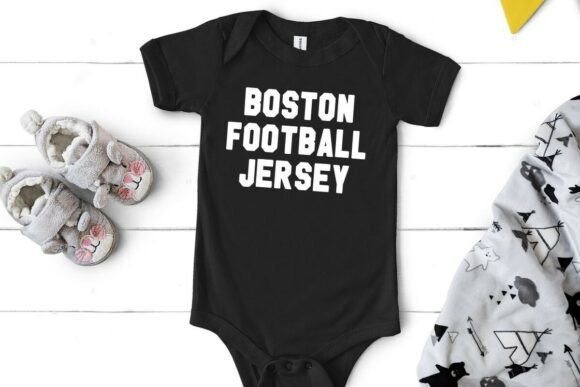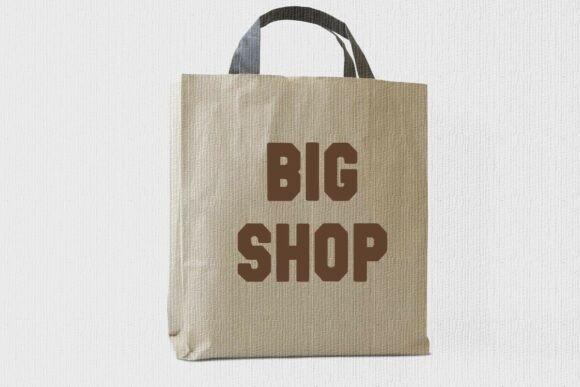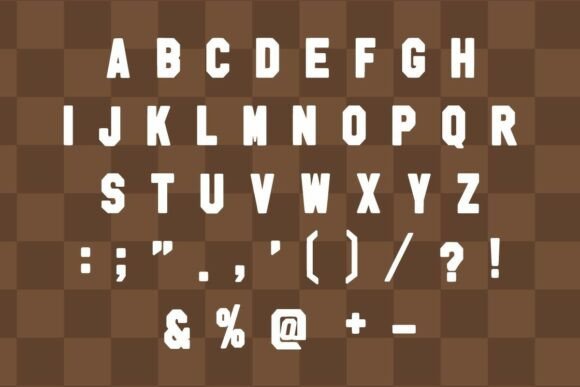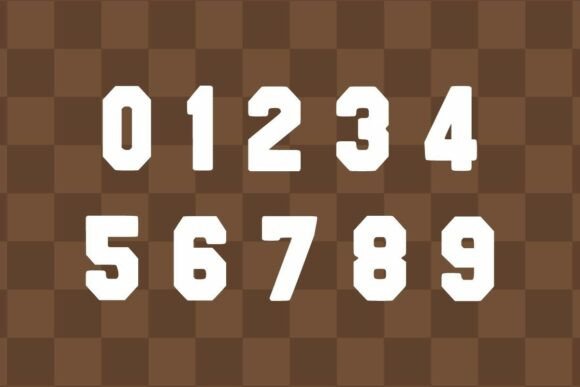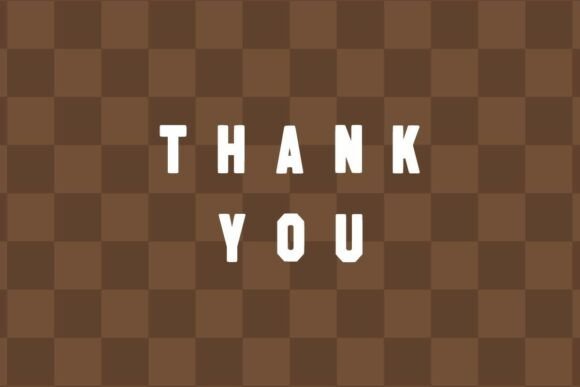
Unleash the Power of Vintage Chic: Discover Bostonfootball Regular Font
There’s nothing quite like the feeling of rummaging through your grandfather’s old trunk, filled with memories and forgotten treasures. Among the dusty relics, you stumble upon an old varsity jacket with a bold, cursive font that screams nostalgia. This moment sparks a creative idea – to bring back the classic charm of bygone eras in your designs. Enter Bostonfootball Regular Font, a bold, vintage-style varsity display font that embodies the essence of classic collegiate lettering.
Bostonfootball Regular Font is more than just a font – it’s a statement piece that adds a rugged, retro touch to any project. Its strong, structured form makes it a standout choice for designers looking to create confident and eye-catching designs. Whether you’re working on winter-themed branding or crafting a motivational quote, Bostonfootball Regular Font is the perfect addition to your design toolkit.
Boston Football Regular Font Key Features
- Font Family: Boston Football Regular Font
- Unique Characteristics: Features a bold, rugged design with a mix of modern and vintage elements, ideal for sports and action-themed projects
Boston Football Regular Font Review
I recently had the chance to work with the Boston Football Regular Font, and I must say, it’s a solid choice for sports-themed projects. ✨ Here are some of the things that worked well:
- The font’s bold and rugged feel perfectly captures the spirit of American football.
- The font is highly legible, even at smaller sizes, making it ideal for signage and scoreboards.
- The font’s consistency across different weights and styles makes it easy to use in various contexts.
- The font may not be as suitable for more formal or elegant designs, as its ruggedness can come across as rough.
- The font’s character set may not include as many international characters, which could be a problem for global projects.
Overall, the Boston Football Regular Font is a great choice for sports-themed projects that require a bold and rugged feel. While it may have some limitations, its strengths make it a solid addition to any designer’s toolkit.
Getting the Most Out of Bostonfootball Regular Font
For optimal results, use Bostonfootball Regular Font for headings and titles to create a bold and striking visual impact.
Bostonfootball Regular Font is ideal for:
- Sports-themed designs (e.g. football, basketball, etc.)
- Streetwear and urban designs
- News and editorial designs
Alternatives to Bostonfootball Regular Font